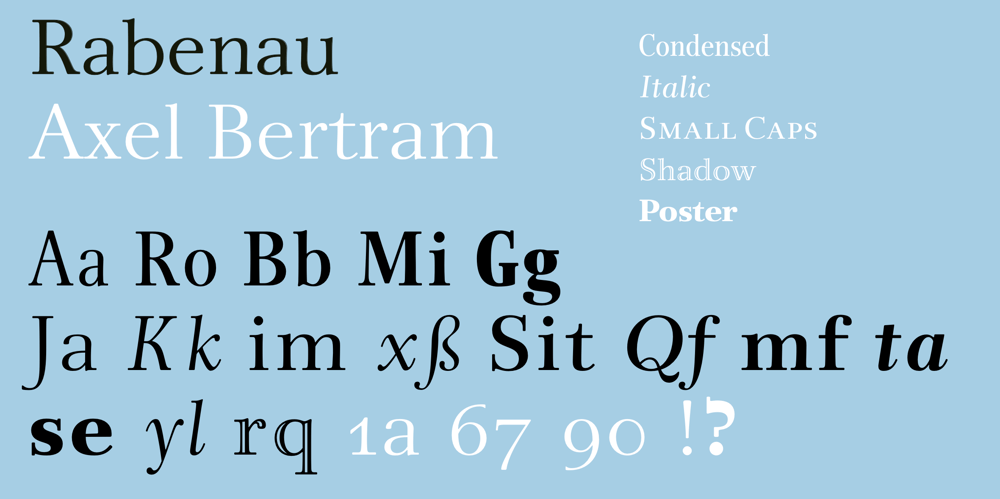
Rabenau Font Family was designed by Axel Bertram, Andreas Frohloff and published by Linotype. Rabenau contains 16 styles and family package options. Rabenau (formerly Lucinde), the distinctly warm and legible type family For 30 years the graphic designer Axel Bertram worked at creating his typefaces: He developed complete new alphabets for magazines and typewriters as well as for the constant demand for typefaces for use by commercial artists. He has developed wall charts the size of advertising posters as teaching aids for training commercial and graphic artists to write in a clean, classic cursive script. In the eighties he used the American Chyron computer to design a screen font for television. In the mid-nineties he discovered for himself the fabulous possibilities offered by the Fontographer font software program and explored them playfully. From the results of these experiments, Axel Bertram selected a design for further development. From 2003 onwards the calligrapher and type designer Andreas Frohloff collaborated with him on the further development and production of the 16 fonts of the Rabenau™ typeface family.The Rabenau font was inspired by many factors: From the fonts used as book covers to typewriter fonts and even printed material from England dating from the beginning of the nineteenth century (e.g. those used by the skilled printer William Bulmer), Rabenau’s relatively high contrast is offset by some organic tapers, subtley rounded bracketed serifs, and a fairly generous x-height. This makes for a typeface that looks especially good in print.Its broad repertoire of weights and styles – Condensed, Poster, and Shadow – give it added versatility, and make it ideal for setting both display and text in the same typeface. Throughout the heavier weights, the contrast is maintained. The Poster Italic sparkles, and will make a fine display type for dynamic headlines, or logotypes. This family of sixteen fonts works beautifully together.All Rabenau font styles have a large set of ligatures and thus cover typical letter combinations in many European languages. Besides the standard ligatures for ff, fi and fl, letter connections are also available for tt, th and fj or ffi, ffl and ffk. The range is completed with lovely arched transitions for the characters st, ck or ct. The latter gives the font that certain something, both in continuous text and above all in headlines.